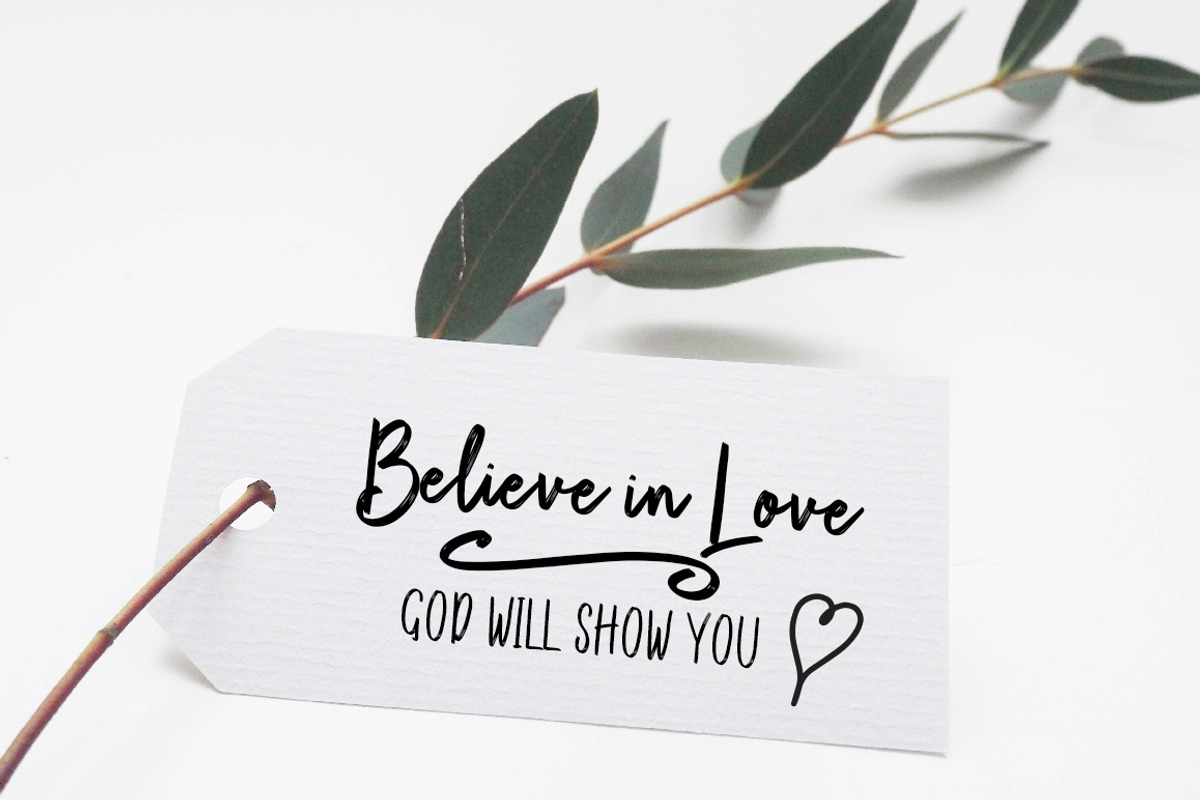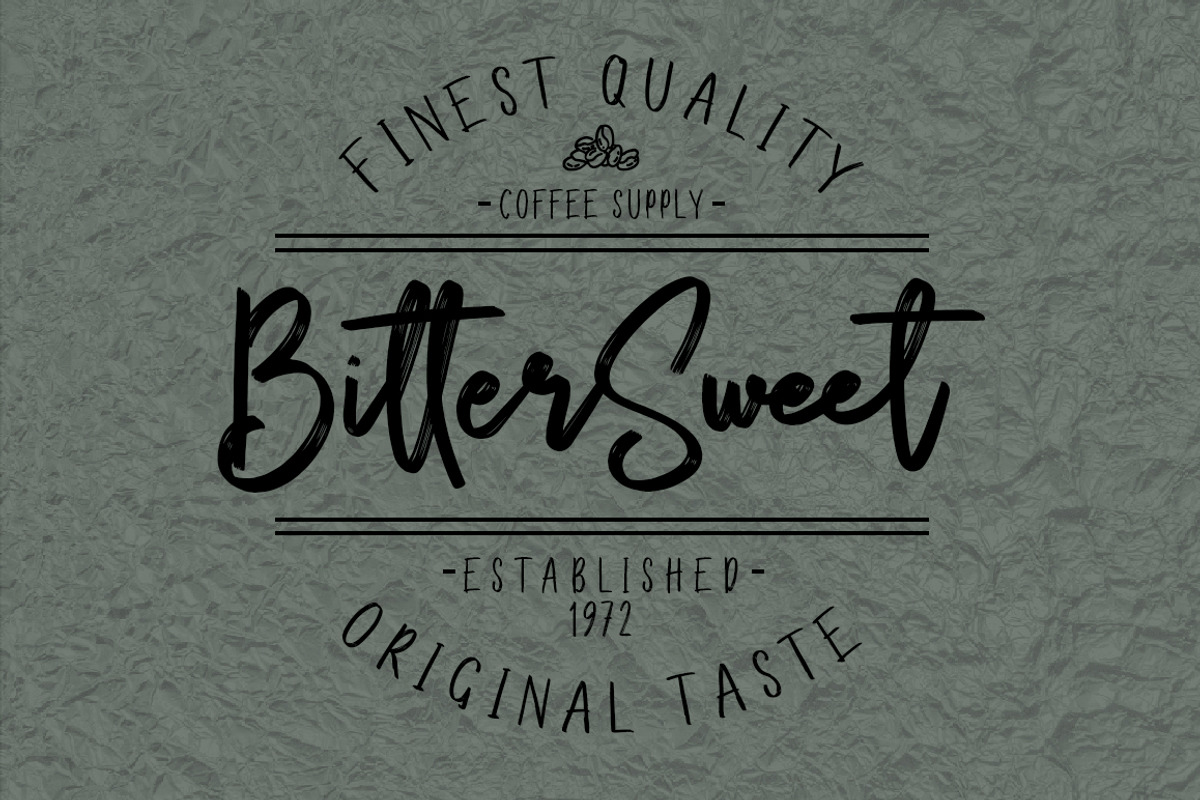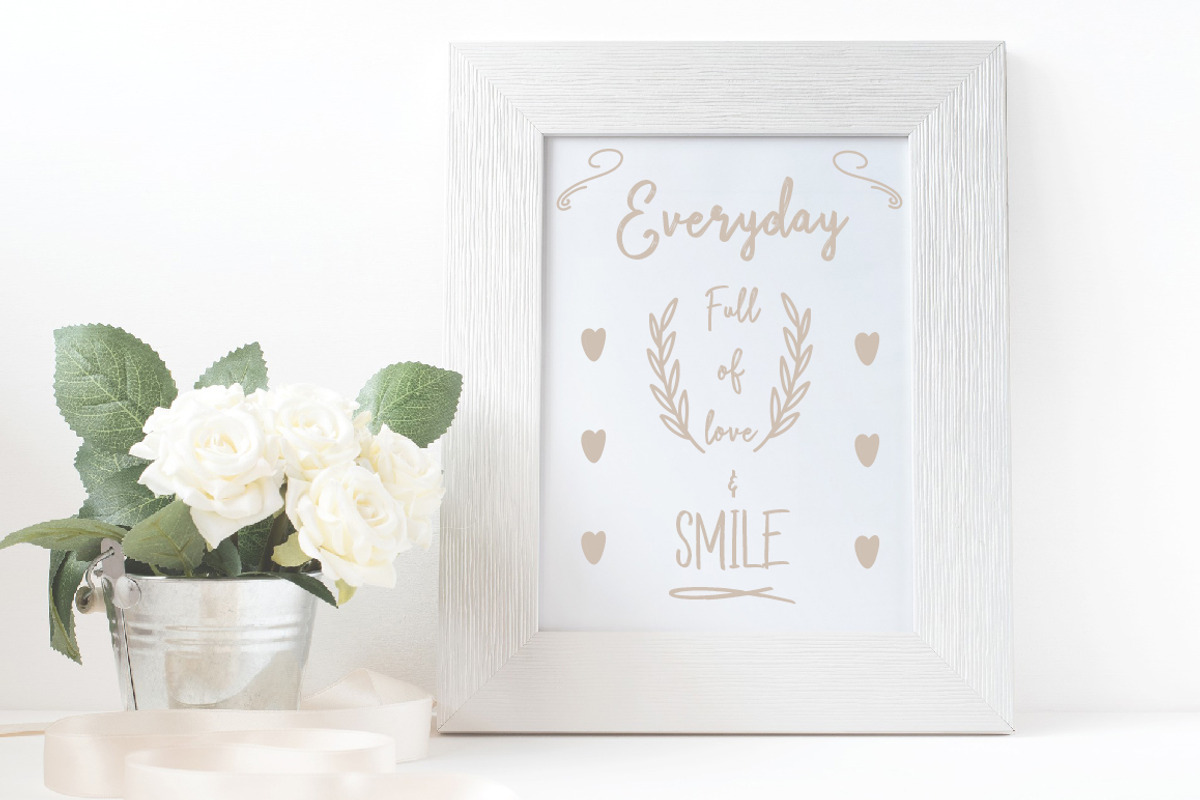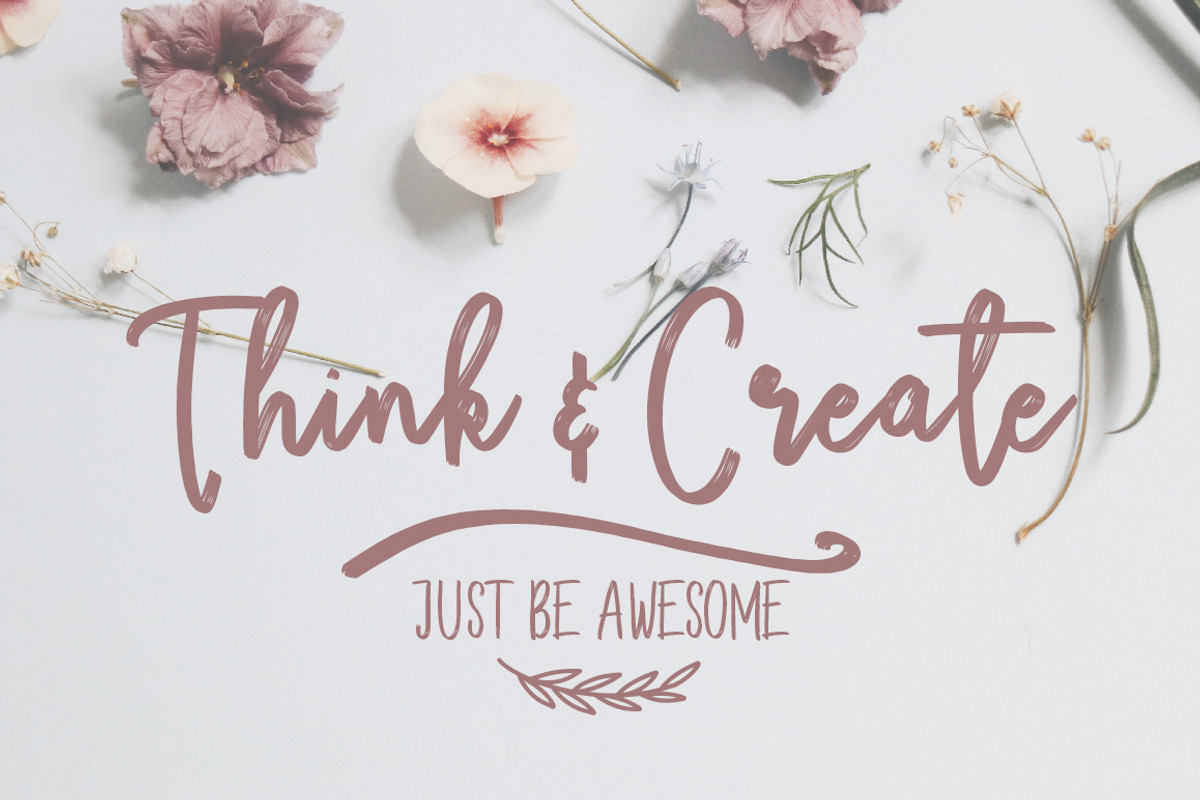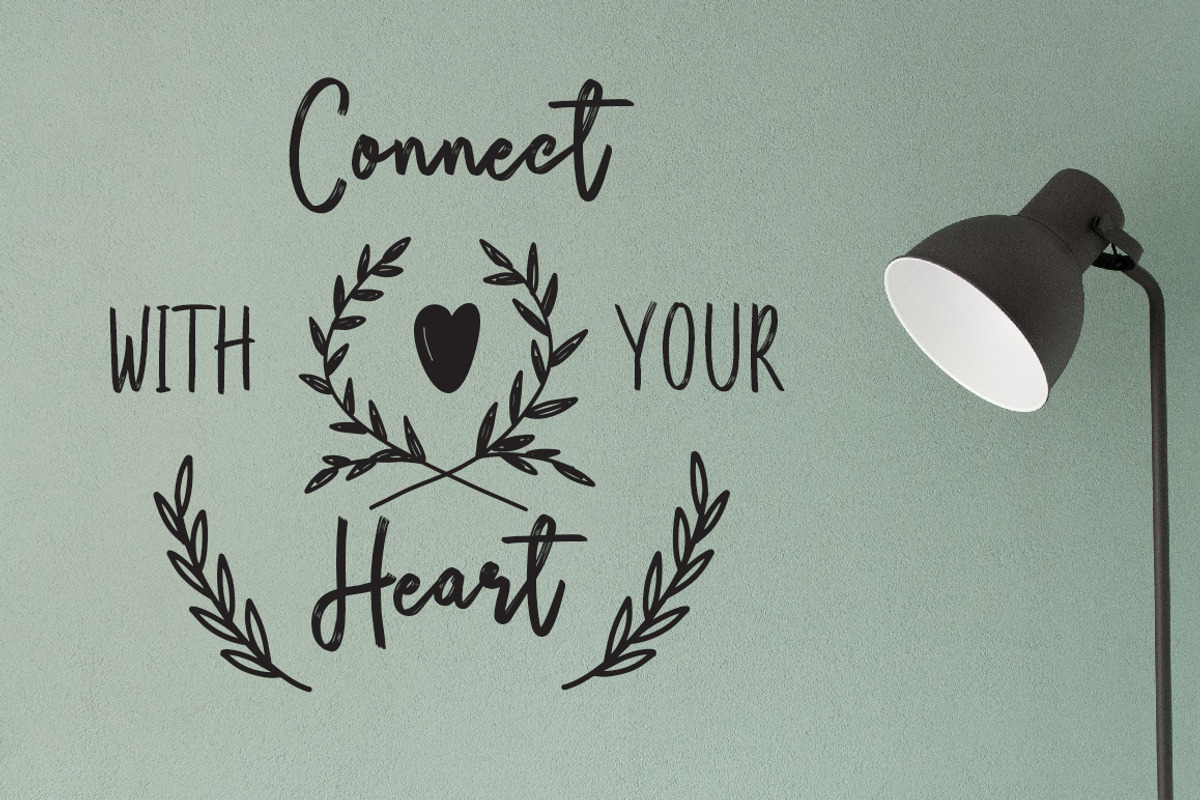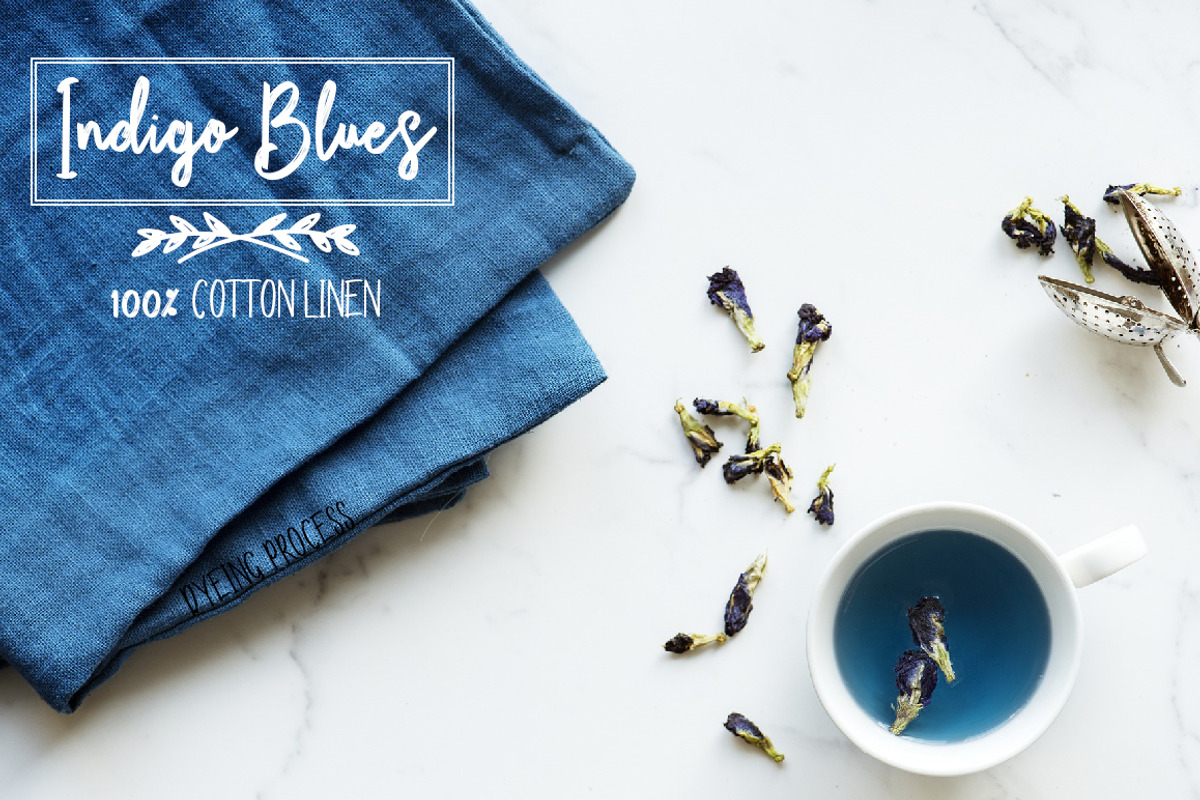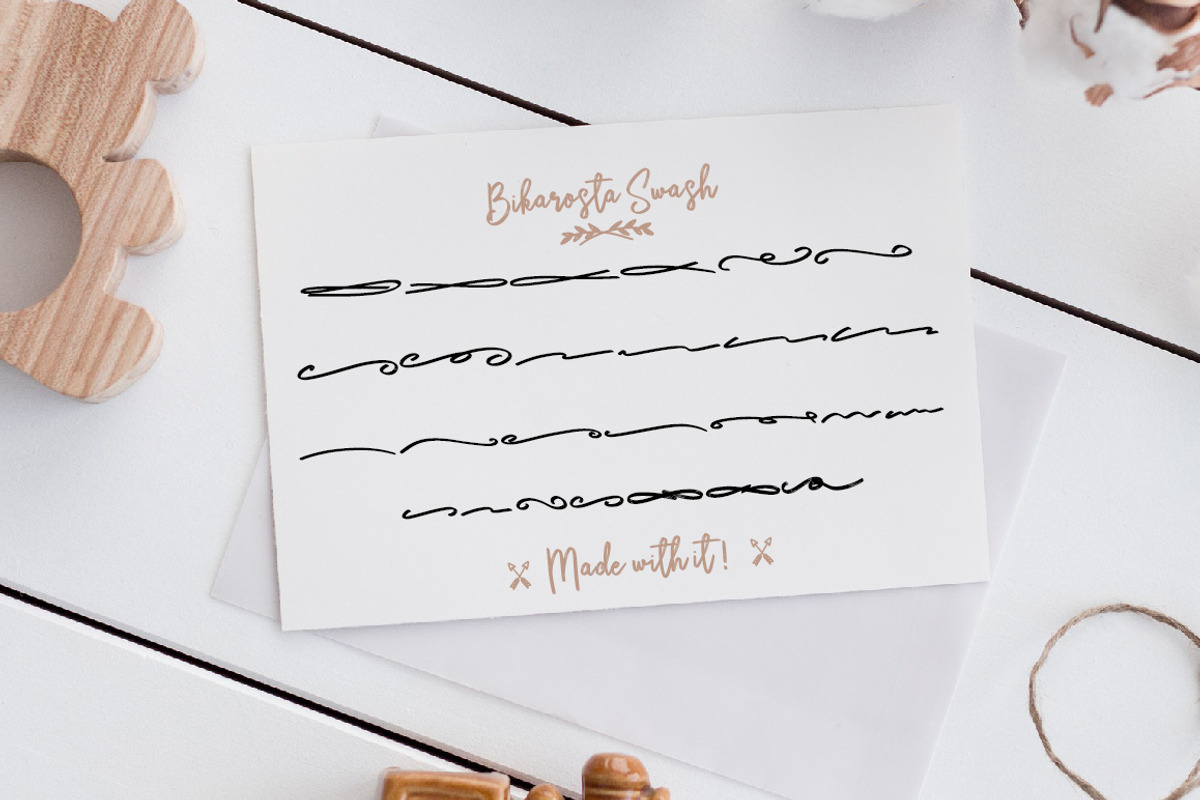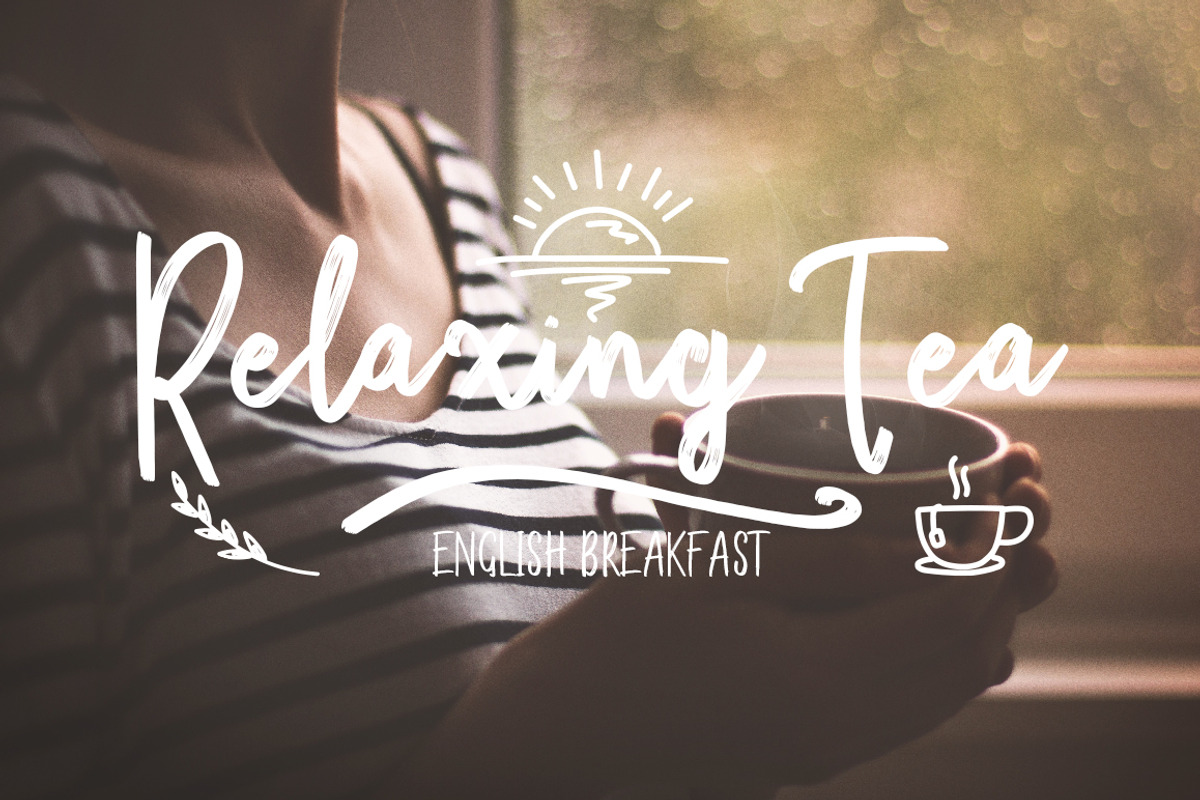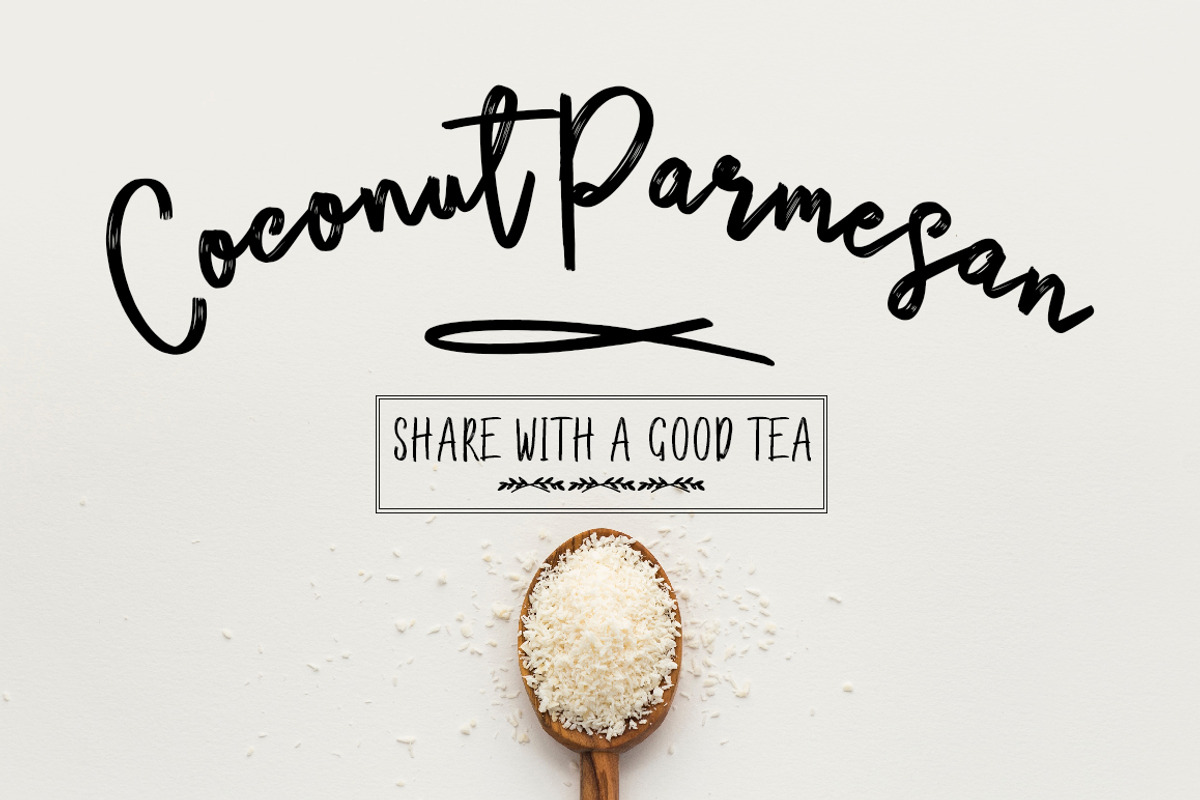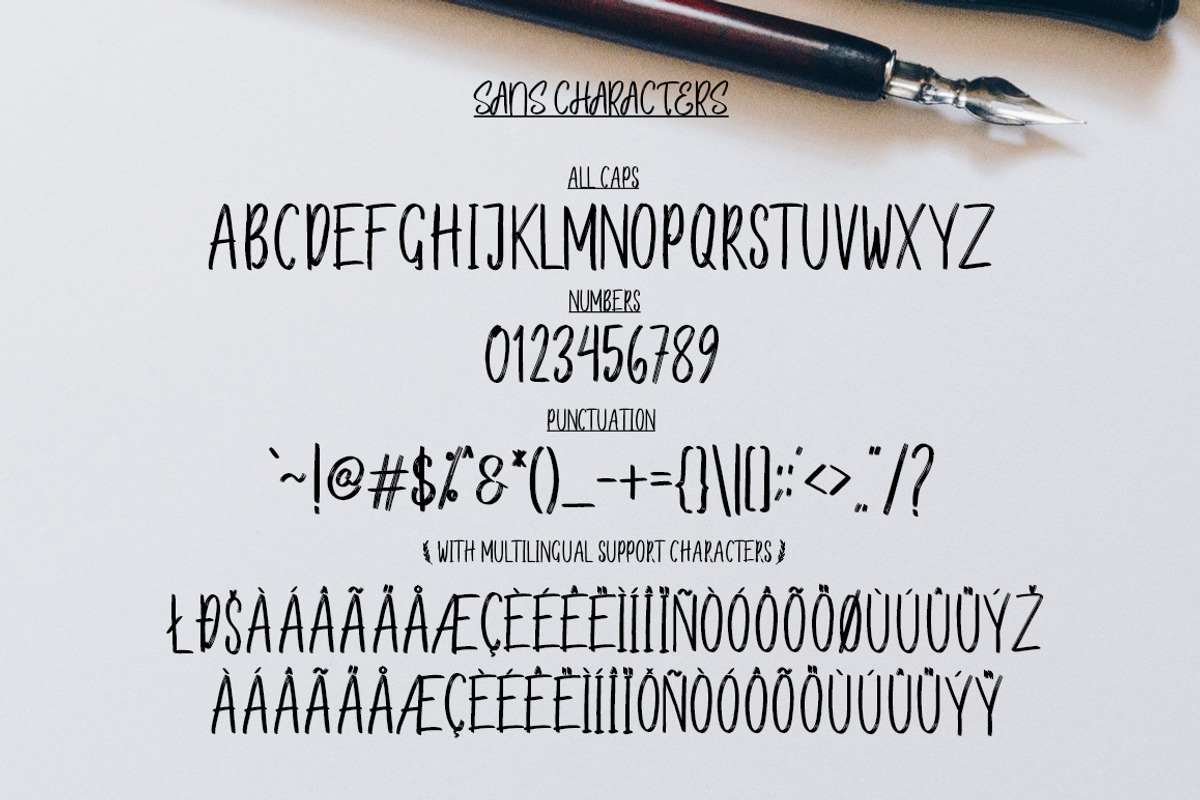
Bikarosta Font Duo with Extras
Bikarosta is a font family include 2 fonts with 1 extra swash and extra illustration. Includes sans and script font files with international language, the Bikarosta Script include ligatures. This font perfect for poster, mockup, template, header, instagram quotes, website header, facebook profiles, movie poster and more.